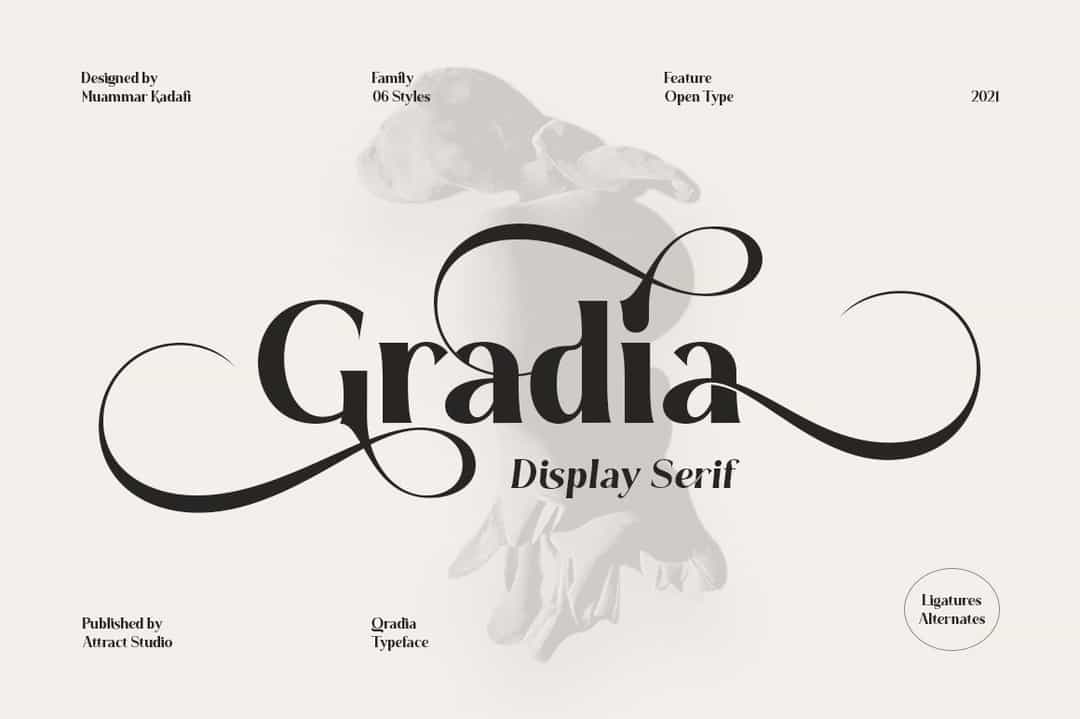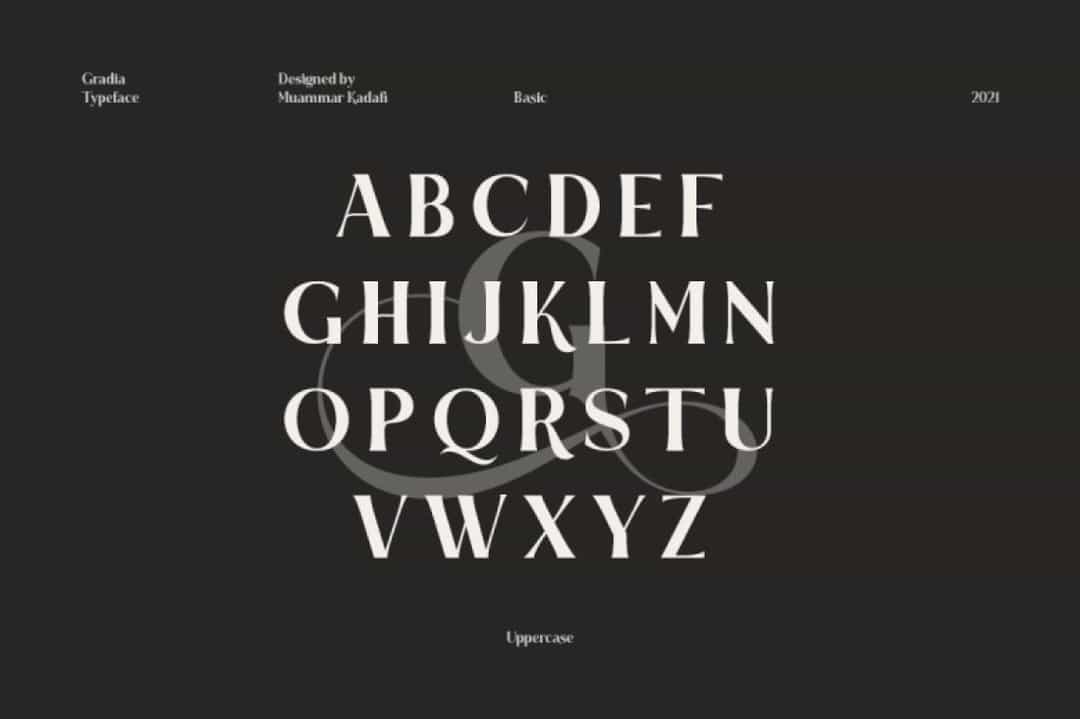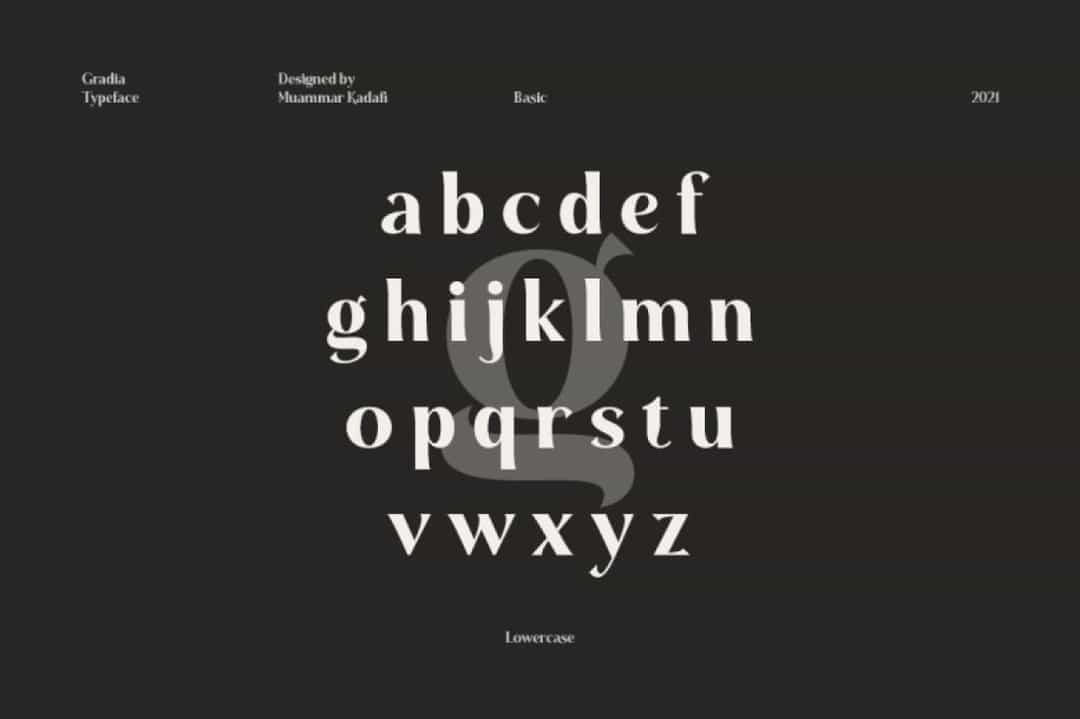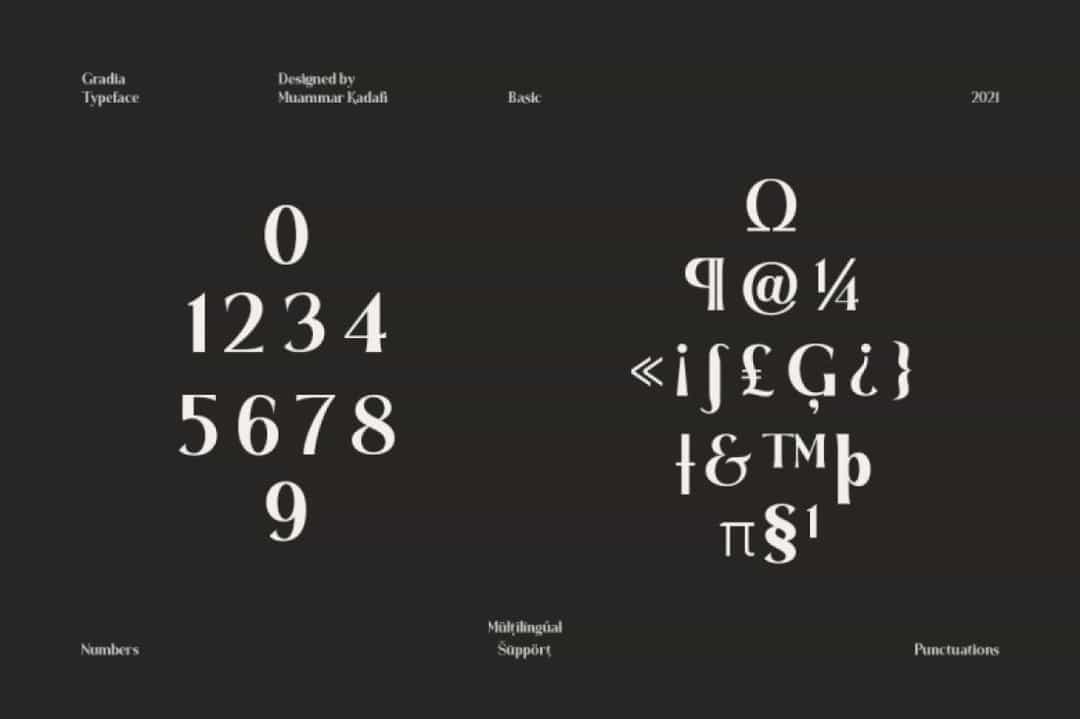
Gradia is an e-syntax serif typeface with a sophisticated yet distinctive typographic style, ideal for invitation cards, magazines branding, logos signage and numerous other innovative projects.